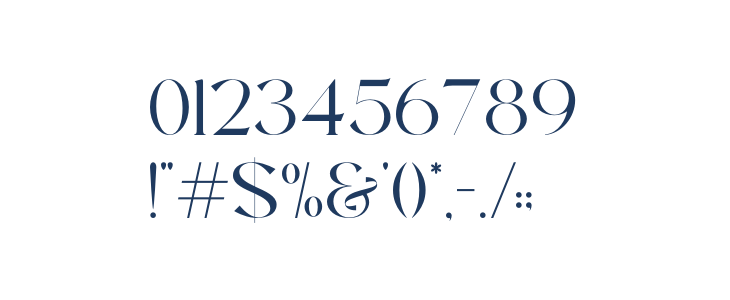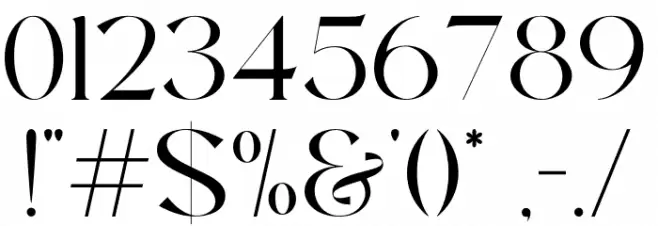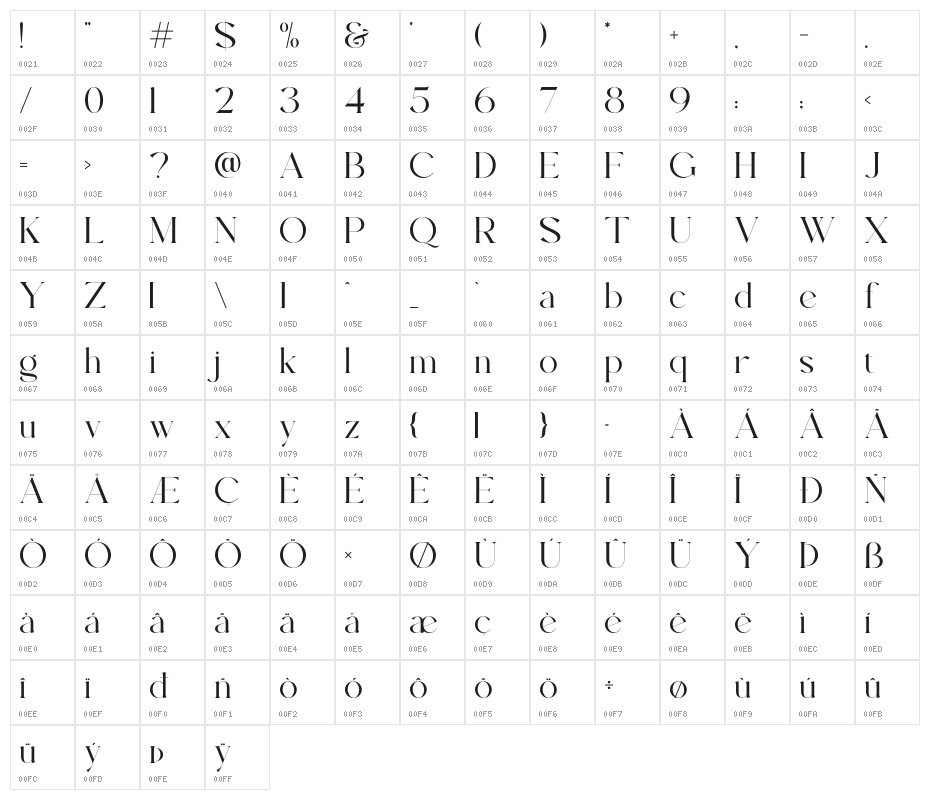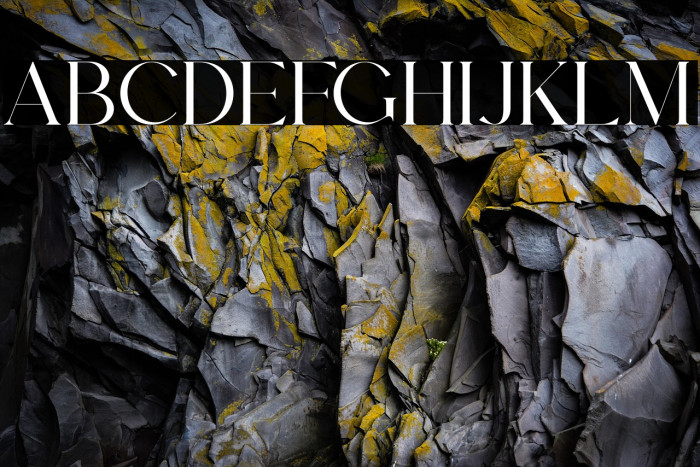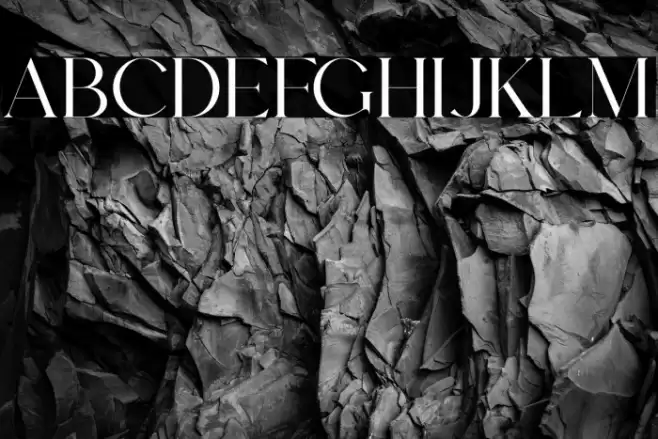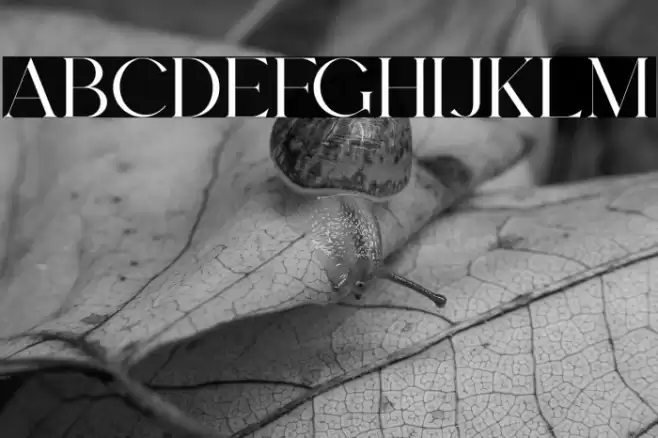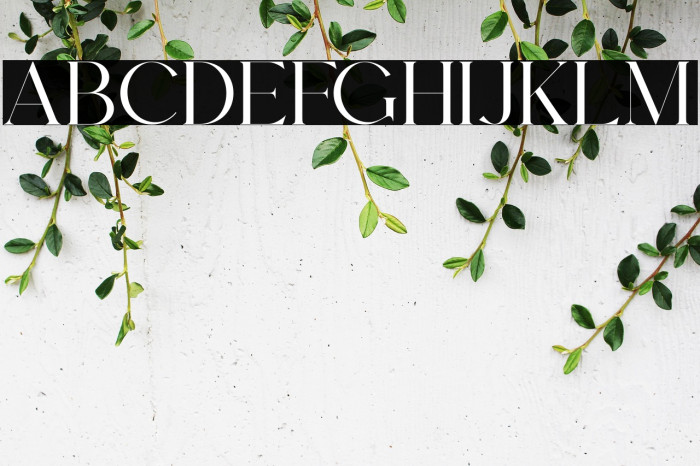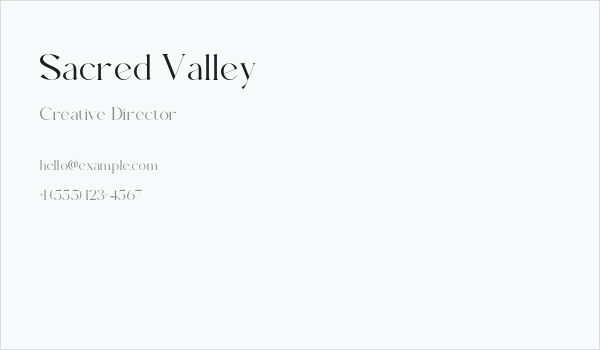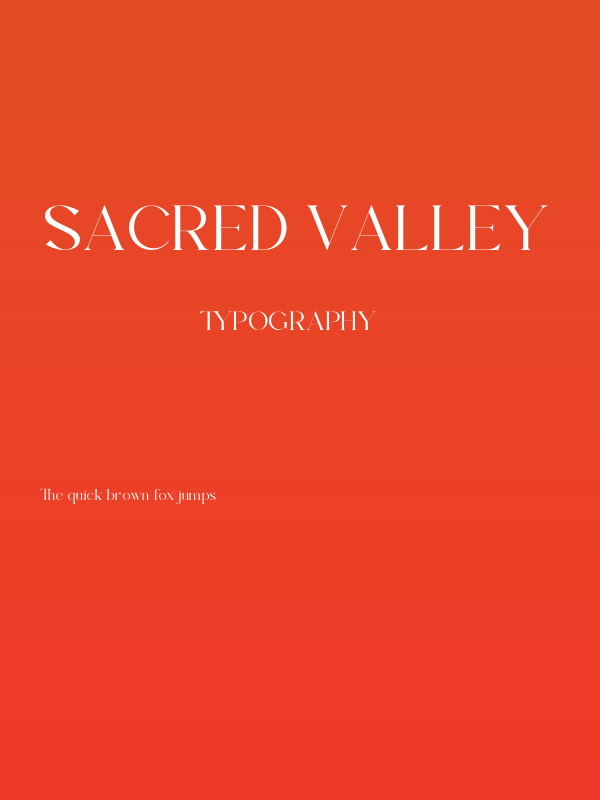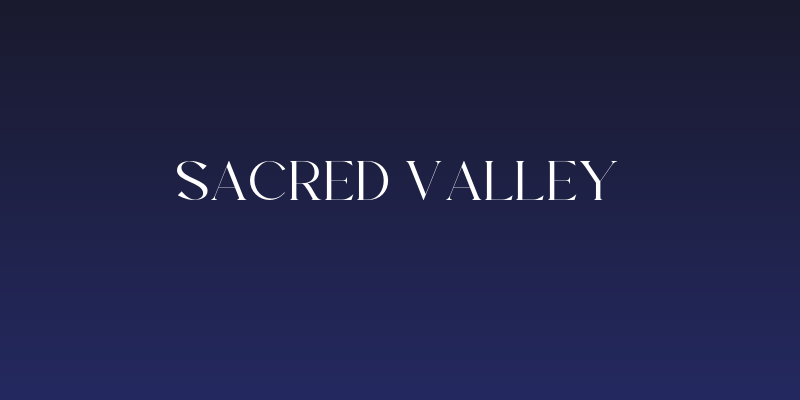
Sacred Valley Font
Sacred Valley Description
This font features a sophisticated and elegant design with high contrast between thick and thin strokes, giving it a refined and stylish appearance. The uppercase letters are tall and slender, while the lowercase letters maintain a harmonious balance with slightly rounded forms. The numerals are distinct and clear, making them easily readable. Special characters are designed with the same attention to detail, ensuring consistency throughout. This font's overall aesthetic is both modern and classic, making it versatile for various design applications.
| Overall Style | Modern, Classic |
| Use Case | Headlines, Logos, Editorial design |
| Proposed Projects | Ideal for luxury branding, editorial design, wedding invitations, and high-end product packaging. |